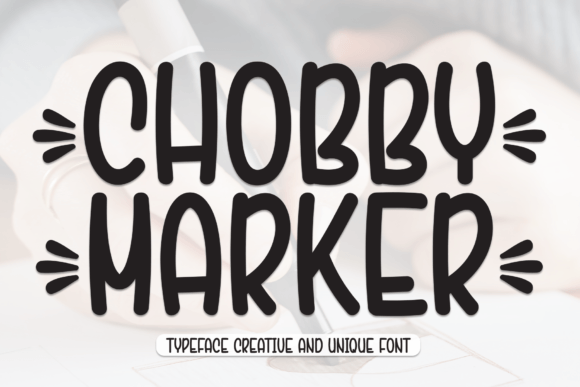
Introducing Chobby Marker Font: The Friendly Sans-Serif for Your Creative Projects
In the vast world of typography, finding the perfect font that balances approachability with clarity can be a daunting task. However, if you’re looking for a friendly sans-serif font that effortlessly combines these qualities, look no further than Chobby Marker. This delightful font is designed to bring a warm and inviting touch to your creative projects, making it an excellent choice for a wide range of applications.
Characteristics of Chobby Marker Font
Chobby Marker is a friendly sans-serif font that boasts balanced letterforms and subtle curves, creating a welcoming and versatile aesthetic. Its design is centered around approachability, making it perfect for projects that require a modern yet inviting feel. The font’s clean lines and rounded edges work harmoniously to produce a visually appealing look that is both contemporary and easy to read.
- Balanced Letterforms: Each letter in Chobby Marker is carefully crafted to ensure balance and harmony, contributing to the font’s overall legibility and aesthetic appeal.
- Subtle Curves: The subtle curves incorporated into the design of Chobby Marker add a touch of warmth and friendliness, setting it apart from more rigid sans-serif fonts.
- Versatile Aesthetic: The font’s versatile design makes it suitable for a wide range of projects, from digital content and branding to print materials and creative endeavors.
Perfect for Projects Requiring a Warm and Inviting Touch
Chobby Marker is more than just a font; it’s a tool that can elevate your creative projects by adding a friendly, modern flair. Its applications are vast, ranging from:
- Branding and Logo Design: Use Chobby Marker to create a memorable brand identity that communicates approachability and warmth.
- Digital Content: Enhance your website, blog, or social media content with a font that engages readers and provides a pleasant reading experience.
- Print Materials: From brochures and flyers to posters and business cards, Chobby Marker can add a touch of friendliness and modernity to your print materials.
- Creative Projects: Whether you’re working on a personal project or a professional assignment, Chobby Marker can help you achieve a look that is both creative and inviting.
The Benefits of Using Chobby Marker Font
Choosing Chobby Marker for your projects comes with several benefits, including:
- Enhanced Readability: The font’s clear and balanced design ensures that your content is easy to read, making it accessible to a wider audience.
- Unique Aesthetic: Chobby Marker offers a unique blend of friendliness and modernity, allowing you to stand out in a crowded creative landscape.
- Versatility: Its versatile nature means you can use Chobby Marker across various platforms and project types, making it a valuable addition to your font library.
- Emotional Connection: The warm and inviting feel of Chobby Marker can help create an emotional connection with your audience, making your message more impactful.
Tips for Using Chobby Marker Effectively
To get the most out of Chobby Marker, consider the following tips:
- Pair with Complementary Fonts: Experiment with pairing Chobby Marker with other fonts to create visual interest and hierarchy in your designs.
- Adjust Font Sizes: Use different font sizes to emphasize important information and create a clear visual flow.
- Play with Colors: Don’t be afraid to experiment with colors that complement the warm and inviting feel of Chobby Marker.
- Consider Line Spacing: Ensure adequate line spacing to enhance readability and make your content more engaging.
In conclusion, Chobby Marker is a friendly sans-serif font that offers the perfect blend of approachability and clarity. Its balanced letterforms, subtle curves, and versatile aesthetic make it an excellent choice for a wide range of projects. By incorporating Chobby Marker into your creative endeavors, you can add a warm and inviting touch that engages your audience and sets your work apart.
Whether you’re a designer, content creator, or simply someone who appreciates the art of typography, Chobby Marker is a font that deserves your attention. Its ability to effortlessly combine friendliness with modernity makes it a valuable tool in the world of design. So, why not give Chobby Marker a try and see how it can elevate your creative projects?